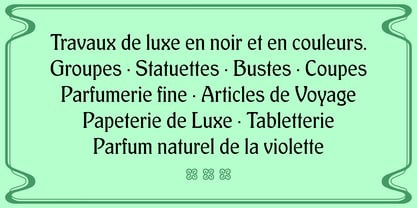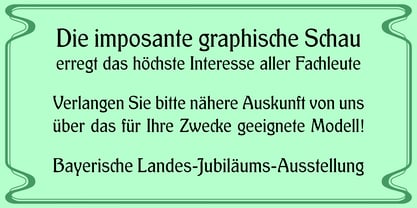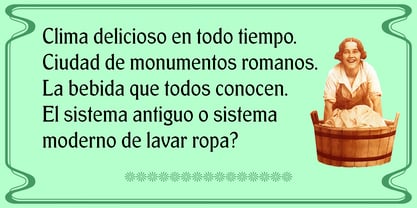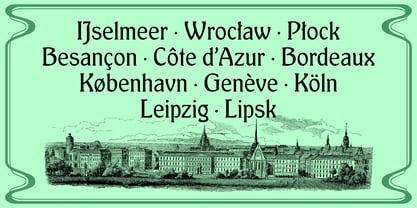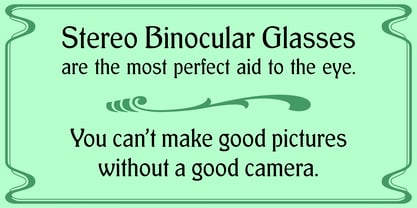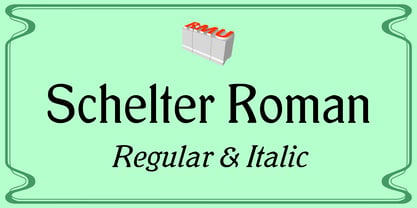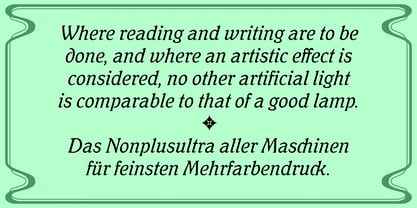
Schelter Roman™
by RMU
The Schelter Roman Font Family was designed by Ralph M. Unger and published by RMU. Schelter Roman contains 2 styles and family package options. More about this family
Inspired by the Schelter & Giesecke body text Antiqua, an Art Nouveau influenced font which was released at the beginning of the 20th century, Schelter Roman was carefully redrawn und redesigned for modern use.
Designers: Ralph M. Unger
Foundry: RMU